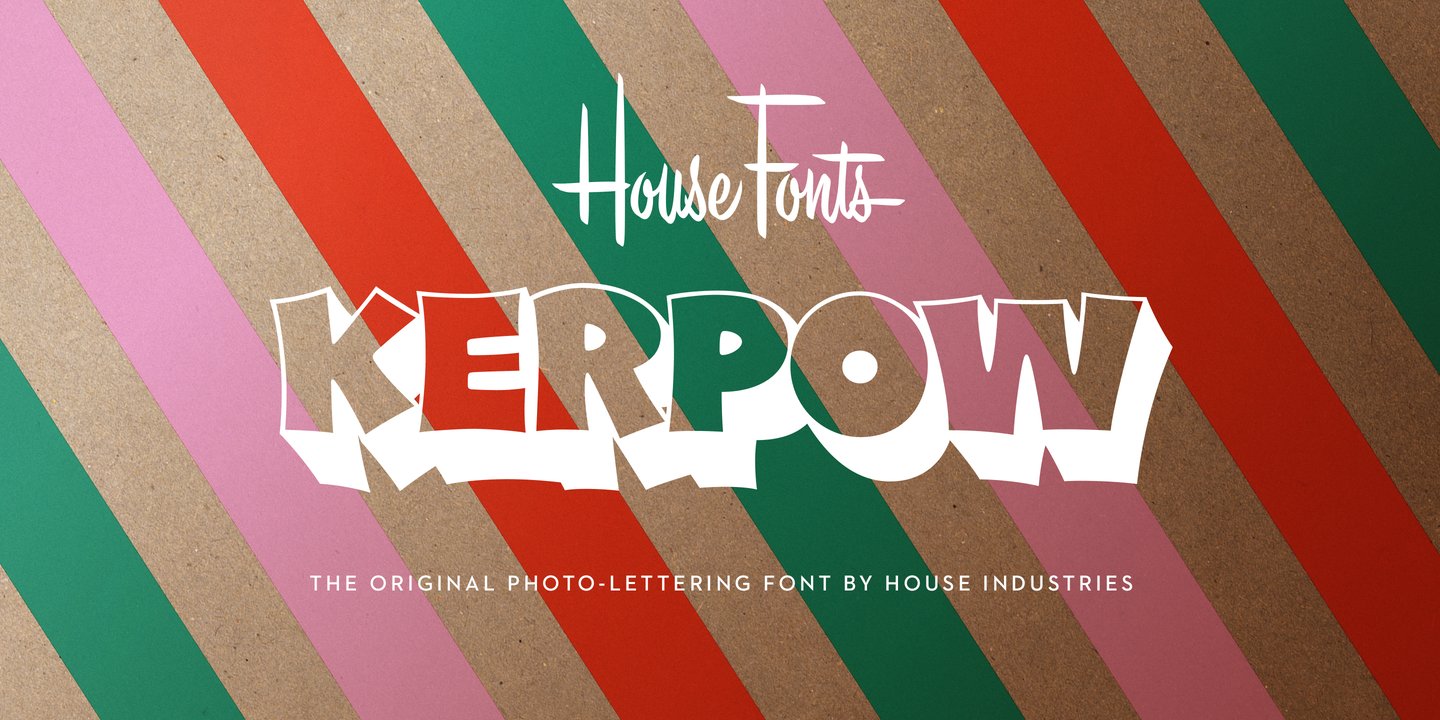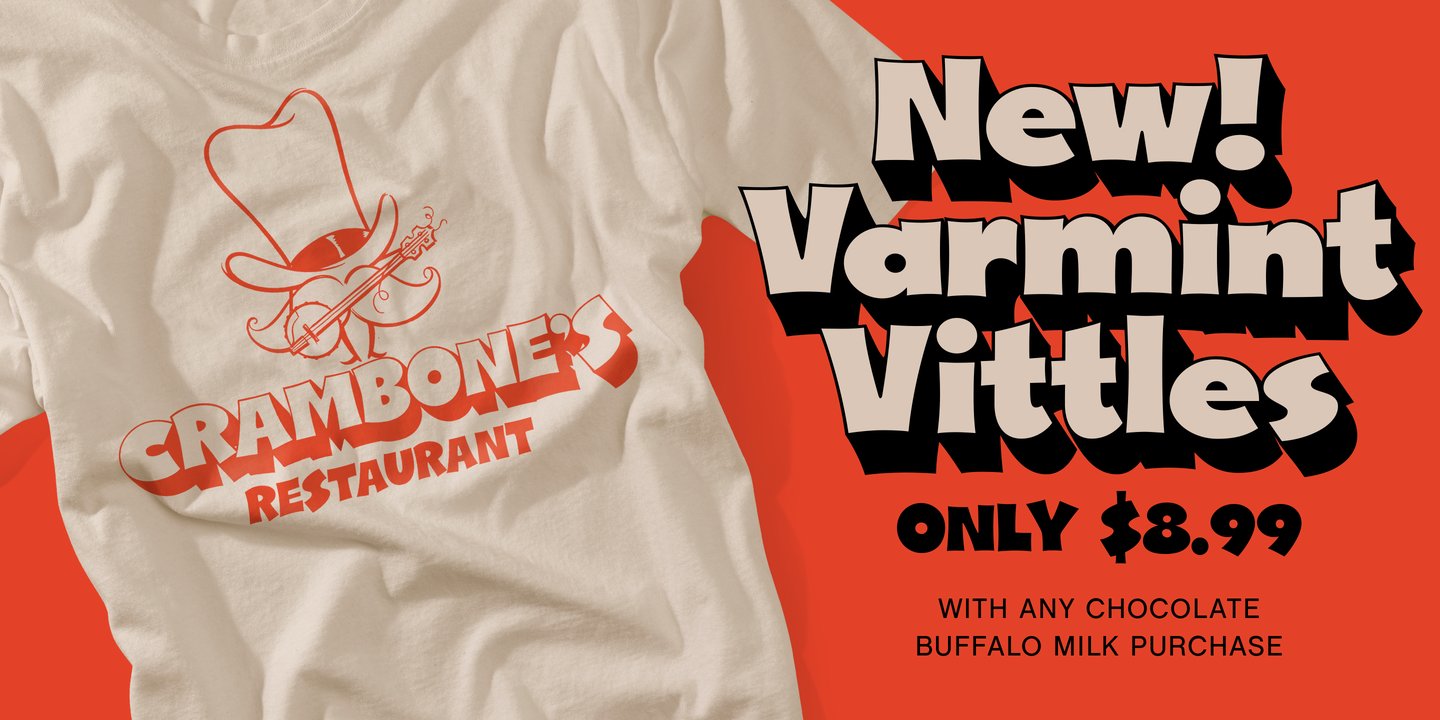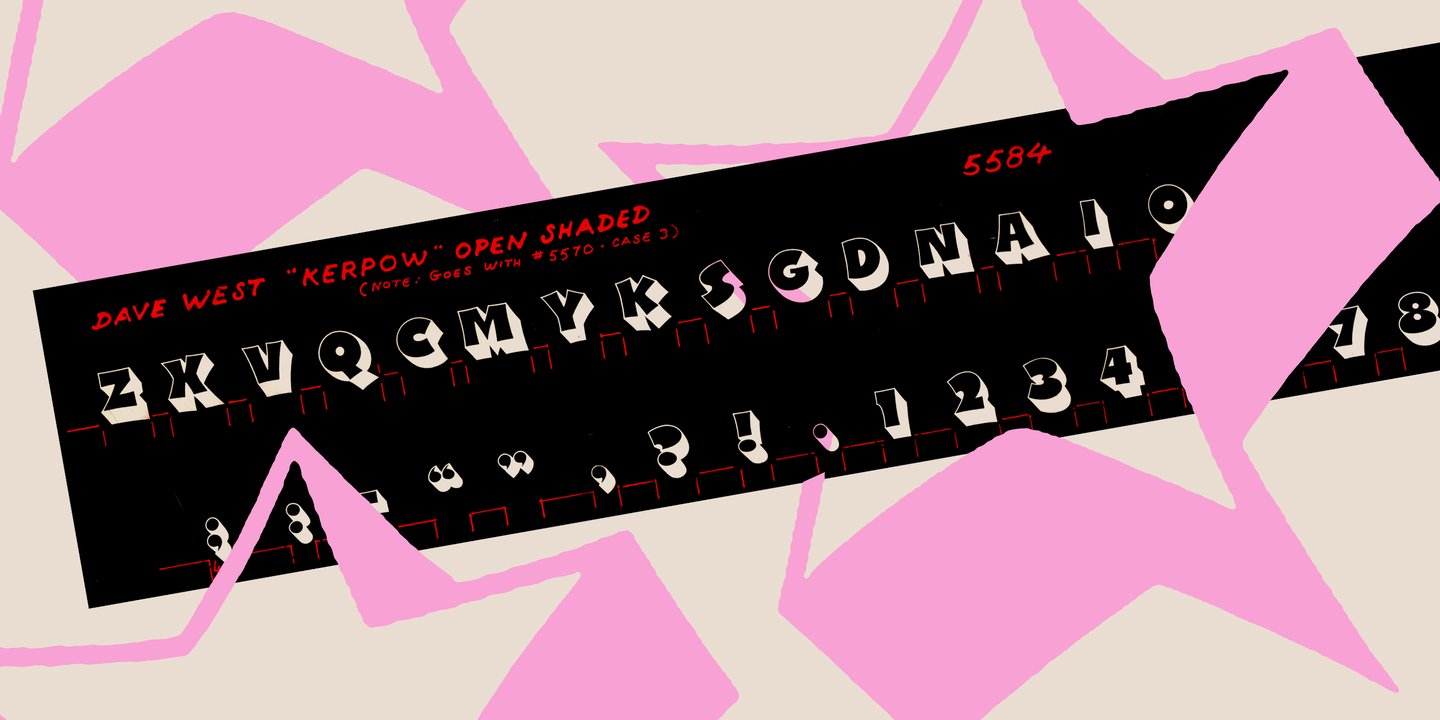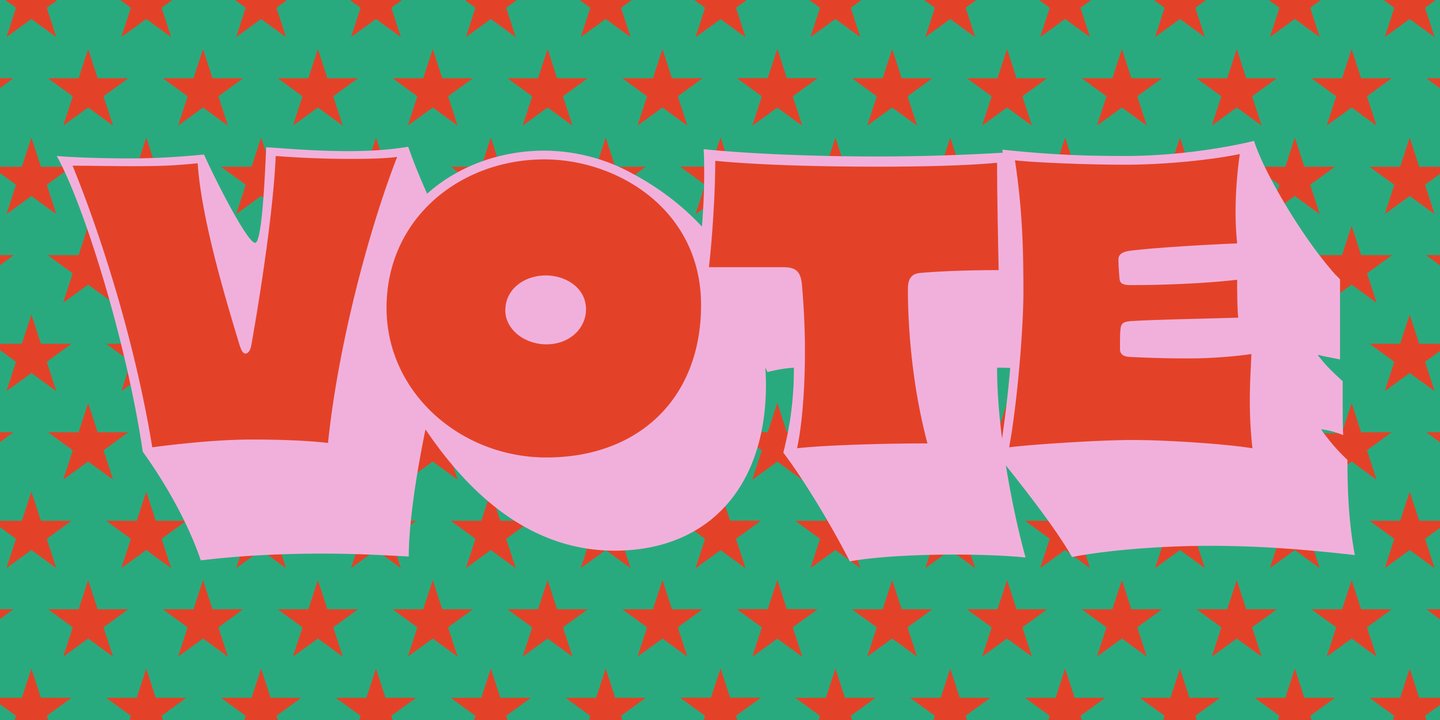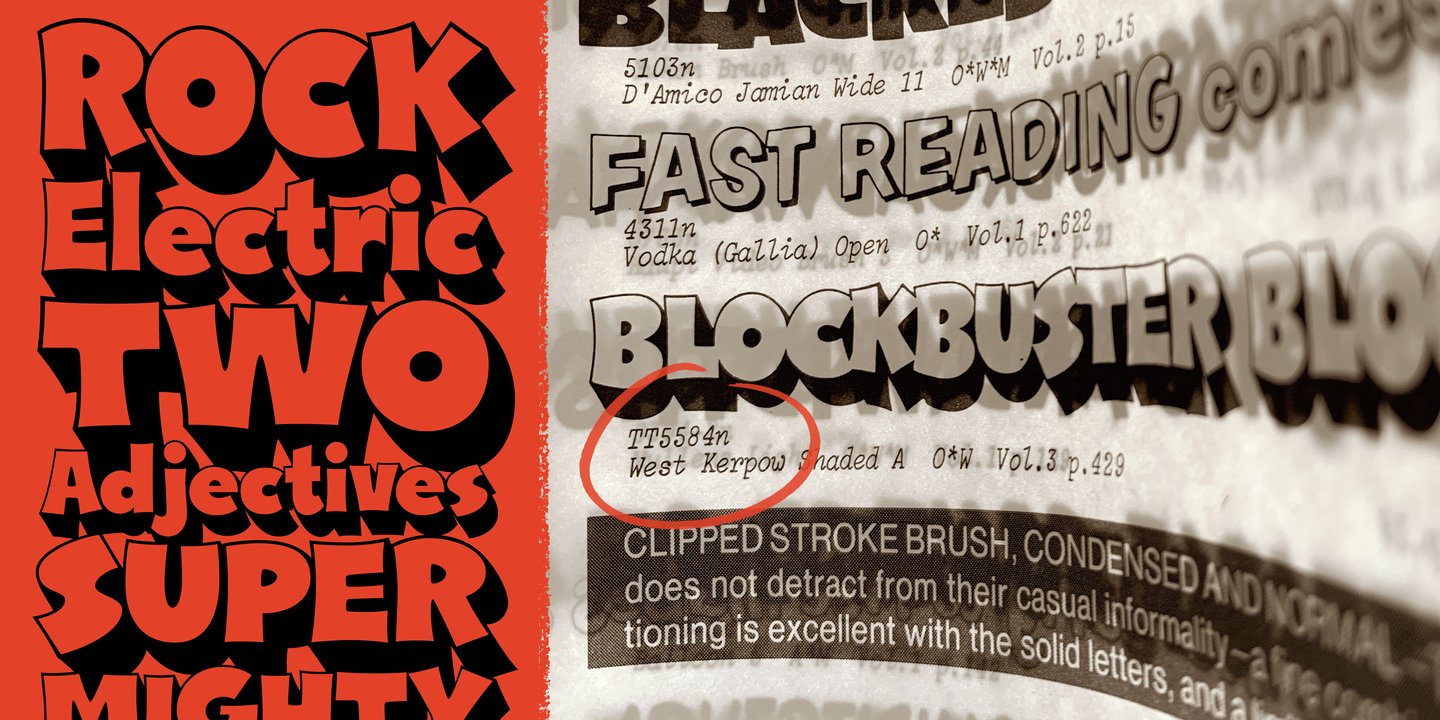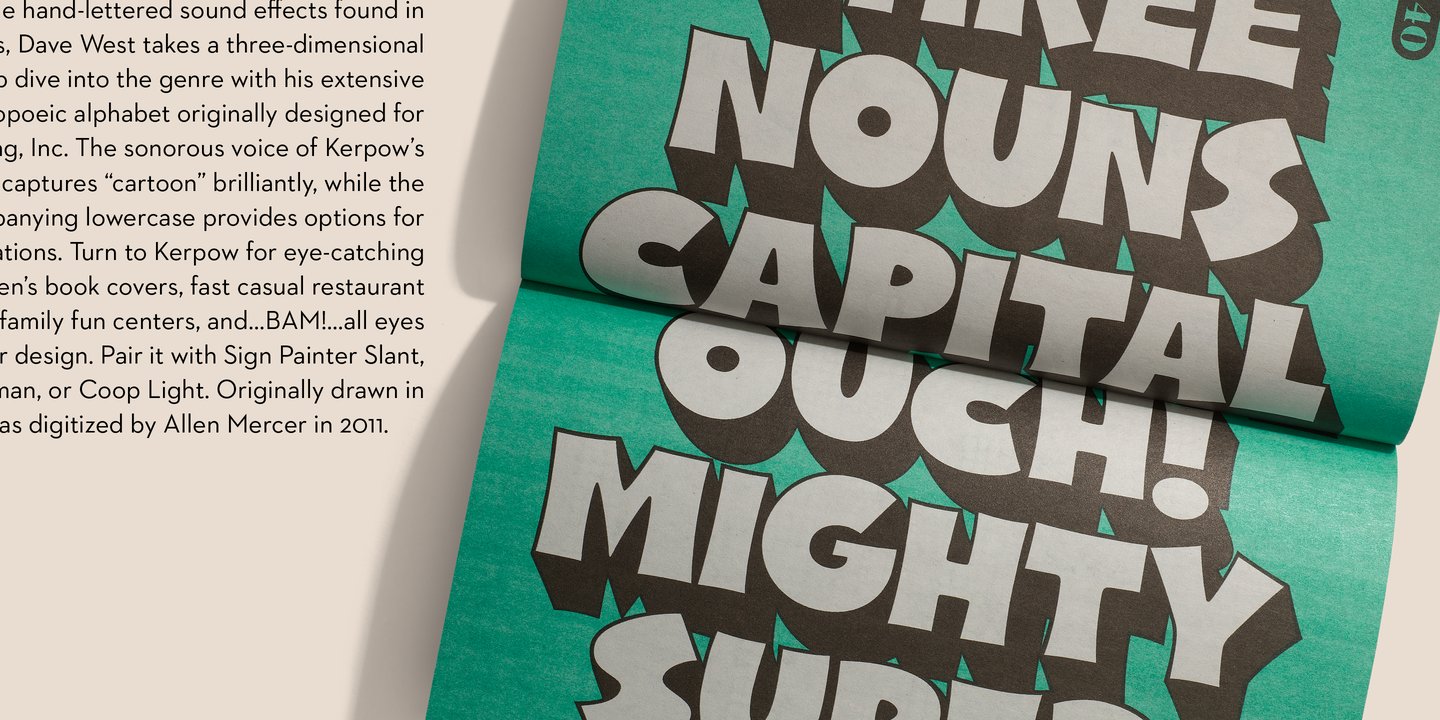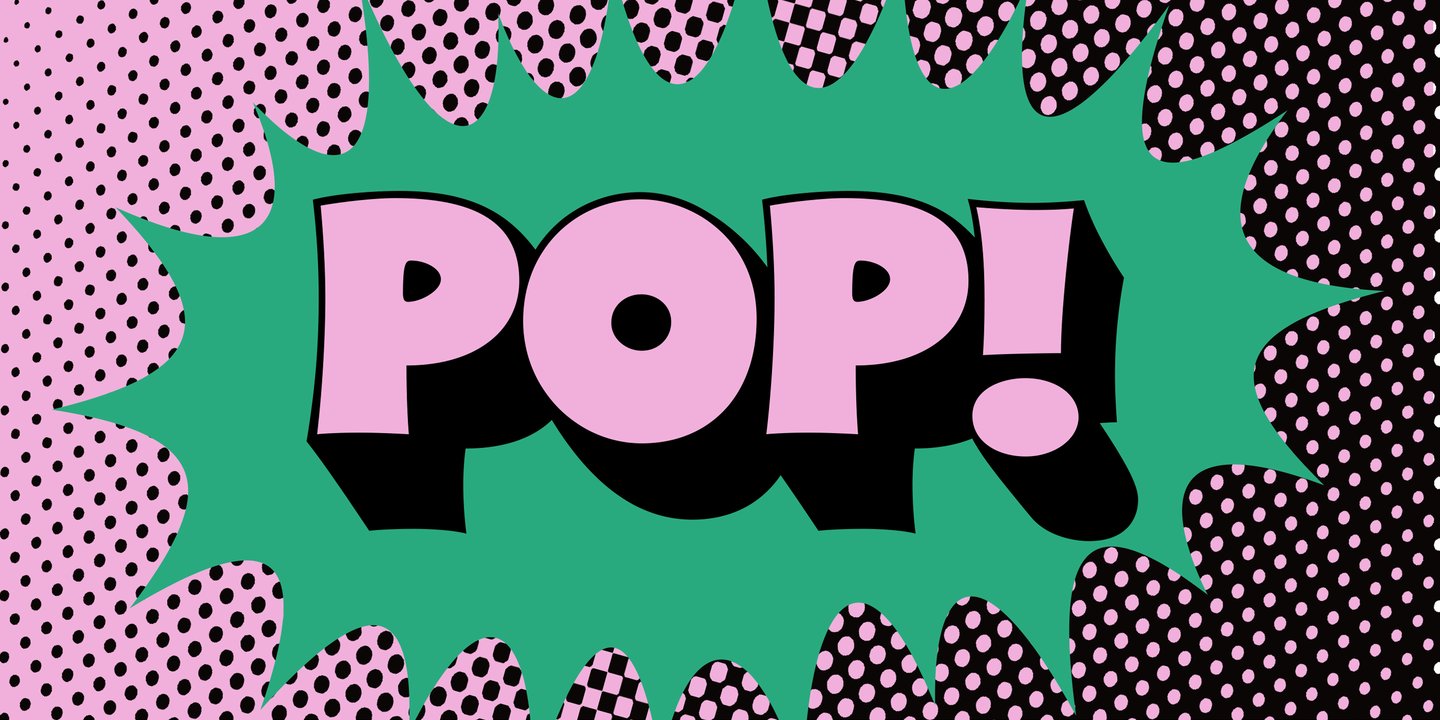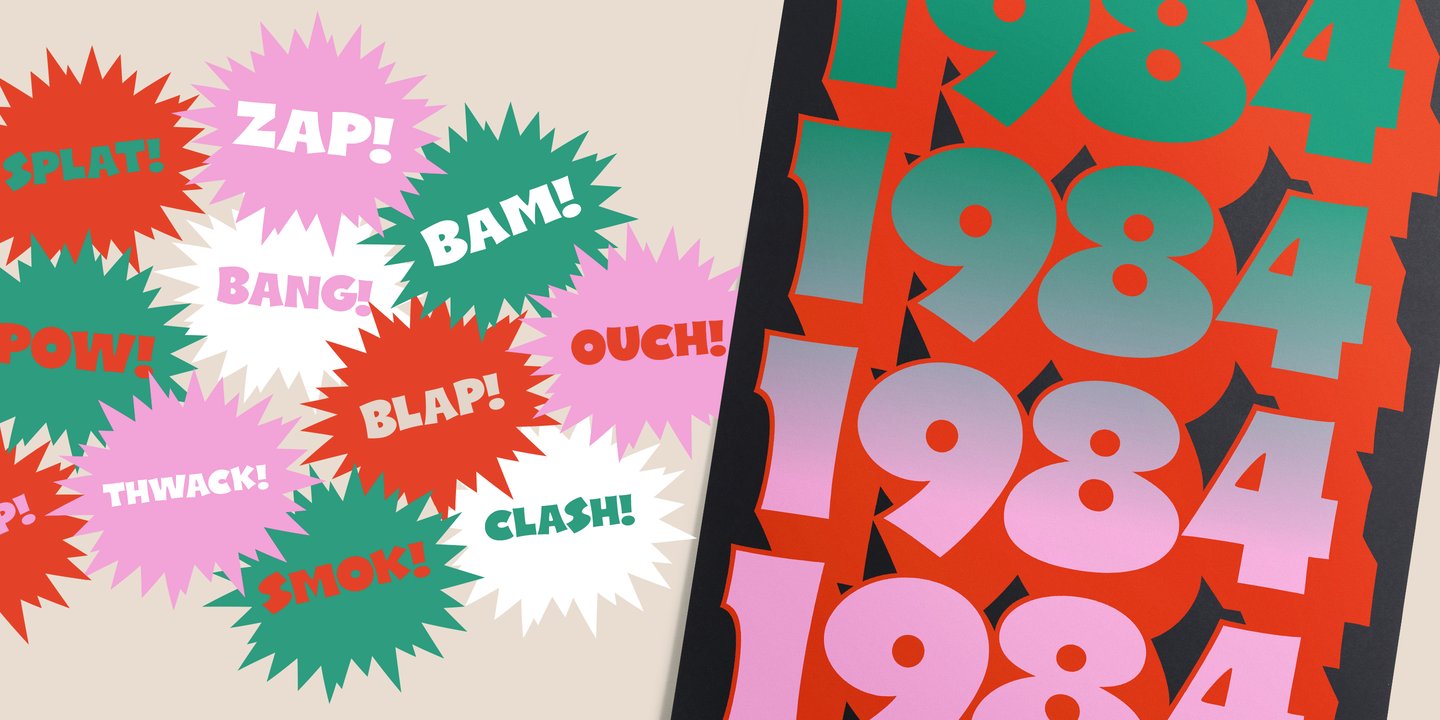
About the Plinc Kerpow Font
About Plinc Kerpow Font Family Inspired by the hand-lettered sound effects found in comic books, Dave West takes a three-dimensional deep dive into the genre with his extensive onomatopoeic alphabet originally designed for Photo-Lettering, Inc. The sonorous voice of Kerpow’s caps captures “cartoon” brilliantly, while the accompanying lowercase provides options for broader applications. Turn to Kerpow for eye-catching children’s book covers, fast casual restaurant marketing, or family fun centers, and…BAM!…all eyes will be on your design.
Originally drawn in the late 1960s, Kerpow was digitized by Allen Mercer in 2011. Please note that the shaded version of the typeface is composed by layering the Regular font and a separate Drop Shadow font. Some assembly required. Like all good subversives, House Industries hides in plain sight while amplifying the look, feel and style of the world’s most interesting brands, products and people. Based in Delaware, visually influencing the world. Designers: Dave West, Allen MercerPublisher: House IndustriesFoundry: House IndustriesDesign Owner: House IndustriesMyFonts debut: Dec 9, 2021 Plinc Kerpow